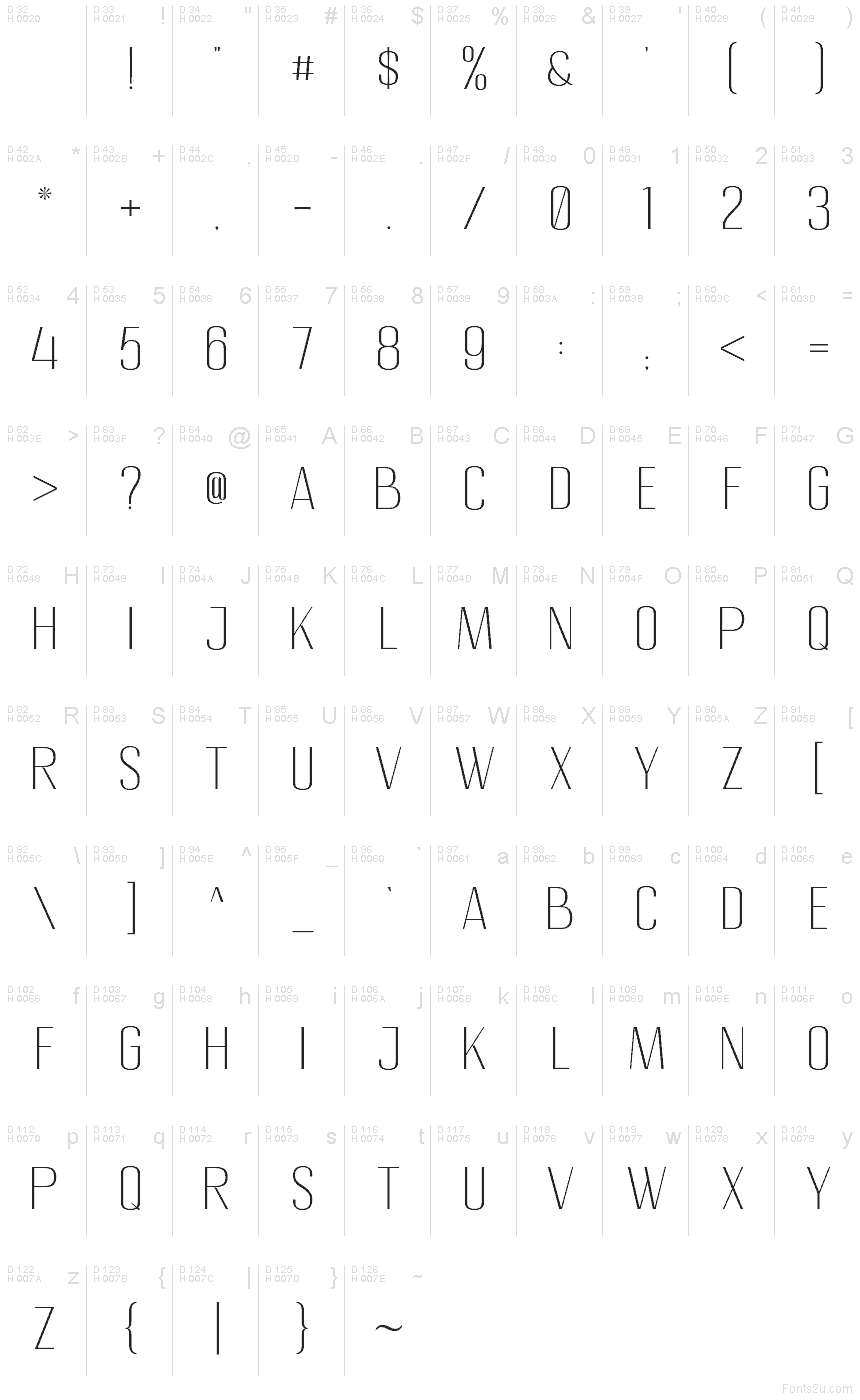
Hillside
Hillside font by Namara Creative is a free thin sans serif font. Its ultra‑condensed proportions, hairline strokes, and soft, rounded corners create a crisp, modern silhouette, while the sinuous curves add a subtle, fashion‑editorial flair. Clean and minimalist, it reads like a tall skyline—elegant, airy, and striking at large sizes—and plays beautifully alongside a script accent for personalized work.
Using Hillside, headlines lock into a refined vertical rhythm that shines on boutique logos, luxury packaging, magazine mastheads, event posters, wedding stationery, and social headers. This free font rewards generous letter‑spacing and high contrast color palettes, delivering cool restraint without feeling cold. Pair it with a warm hand‑drawn script or a simple geometric sans for body copy to keep the focus on its sleek lines.